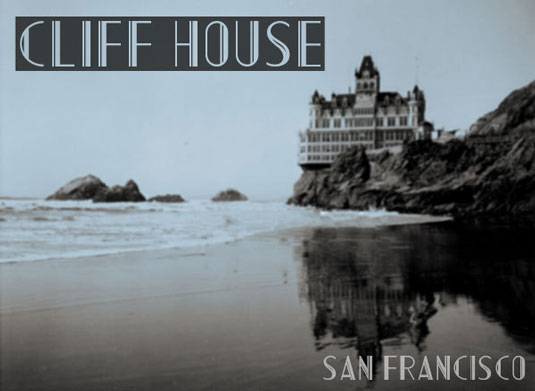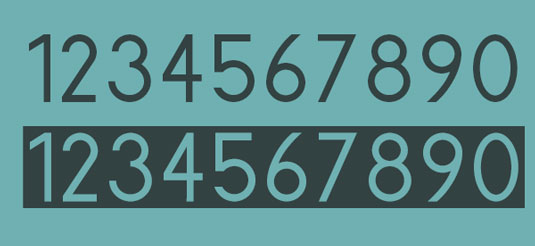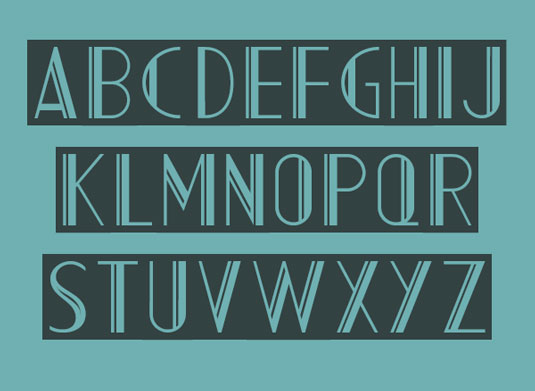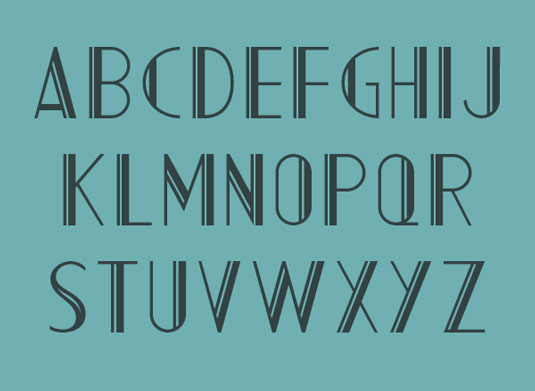
AC Mountain by Adrian Candela
Spanish graphic designer Adrian Candela developed AC Mountain as the starting point of an on-going idea. "Lately, as a personal project, I've been taking photos of old sign boards in my home town. The idea behind is to design fonts based on the custom-made, hand-drawn, hand-carved typographies used on them.
"The first one in this series, AC Mountain, is based on a wrought-iron sign board. The name of the font is just the translation of the Spanish word montaña."